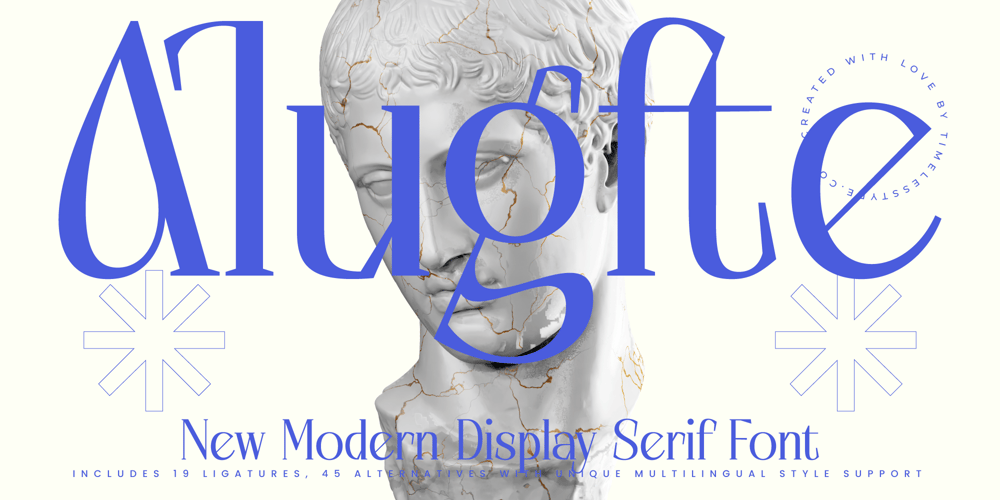
Alugfte Font Family was designed by Heru Utama Putra and published by Timelesstype Studio. Alugfte contains 2 styles and family package options. Alugfte – New Modern Display Serif Font , from Timelesstype, Suitable for any projects such as: logos, branding projects, homeware designs, product packaging, mugs, quotes, posters, shopping bags, t-shirts, book covers, name card, invitation cards, greeting cards, label, photography, watermark, special events, and all your other luxury and beautiful projects that need a Luxury Serif taste.